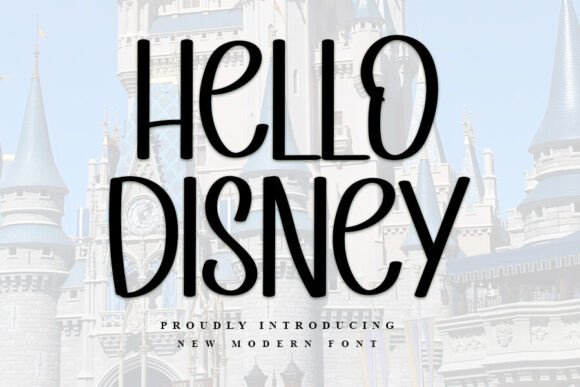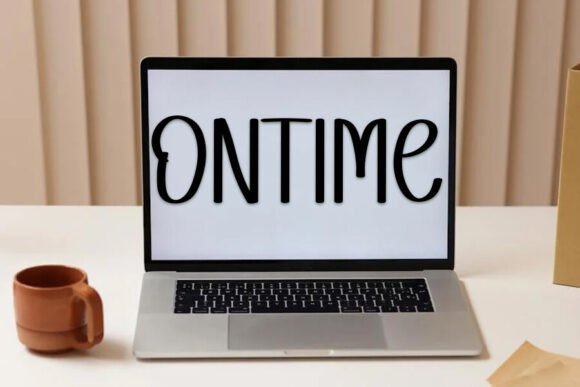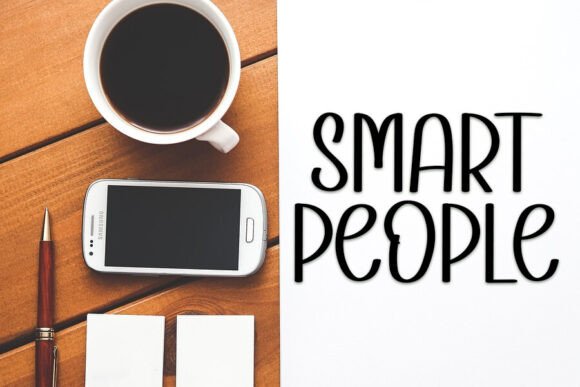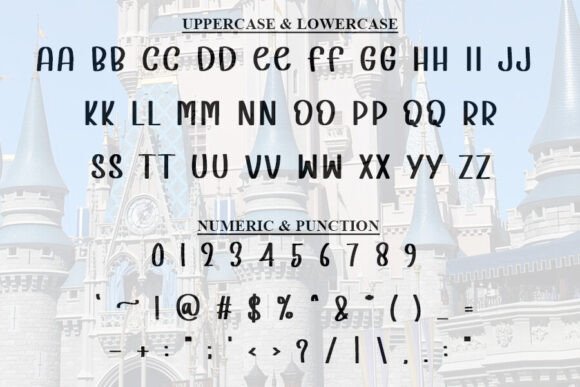
Hello Disney Font: A Cute & Modern Script for Cricut Crafts
About the Hello Disney Font
Let us introduce you to Hello Disney Font, where timeless design meets modern craftsmanship. Introducing ‘Hello Disney’, an elegant and stylish font perfect for breathing new life into your creative projects. With its modern and appealing aesthetic, it effortlessly enhances YouTube banners, Cover Logo Mockups, Wedding Invitations, ID Cards, Flyers, and Crafts, adding a touch of sophistication to any design. Unleash the potential of ‘Hello Disney’ to propel your business towards growth and success. This font not only excels in function, but also stands out with its simplicity and uniqueness – a characteristic sure to make your projects turn heads in admiration.
Hello Disney Font Usage Examples
Hello Disney Font Example